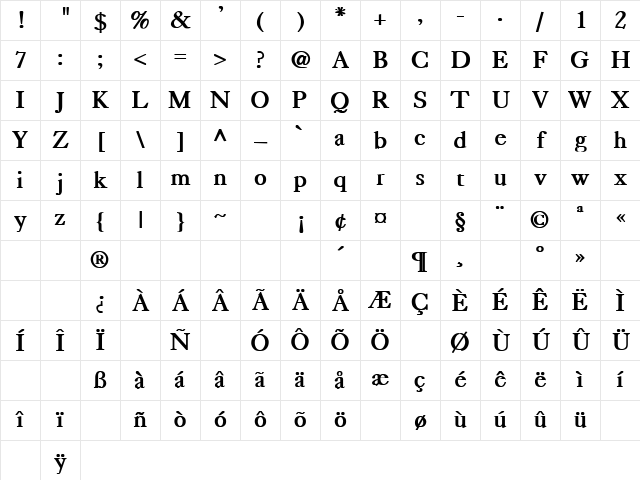
Sick As A Dog 4 Bold
Design Context for Sick As A Dog 4
Sick As A Dog 4 is a composed and adaptable typeface that performs quietly and consistently across a wide range of design contexts. Its bold stroke weight gives it real presence on the page.